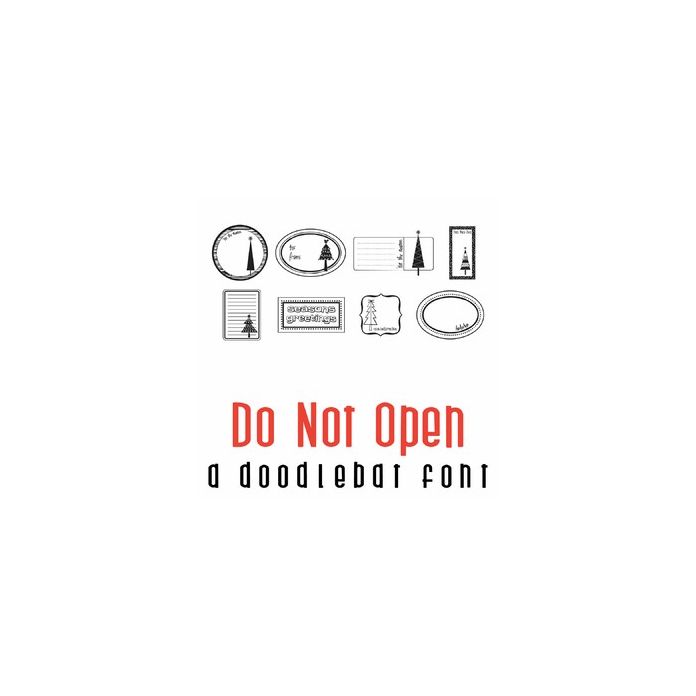
Do Not Open Doodlebat Font
This fun doodlebat font features 26 holiday tags. Perfect for cards, crafts, gifts, decor, scrap book pages, planner stickers and more!